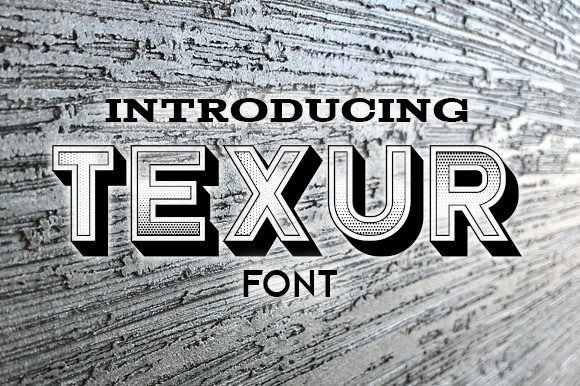
In a world of digital monotony, individuality and creativity are the new frontiers. Introducing Texur, the font that breaks the mundane, grabbing attention like a captivating poster in a silent world. Its bold strokes and dramatic curves transport you to a realm where words dance with grace and flair.
Texur is more than just a decorative font; it's an expression of your unique personality, a reflection of your daring spirit. Whether you're creating eye-catching posters, captivating presentations, or personalized logos, Texur is your trusted companion, turning ordinary designs into extraordinary masterpieces.
Unleash your creativity and embark on a typographic adventure with Texur. Let your imagination soar as you craft designs that radiate confidence and style. Dive into a world of endless possibilities, where your words take center stage, leaving an indelible impression on every viewer.